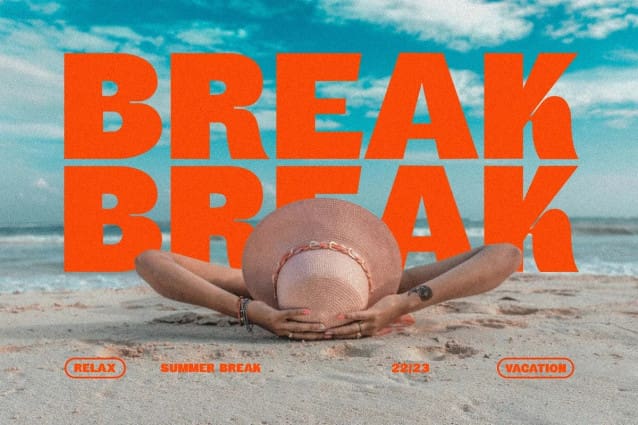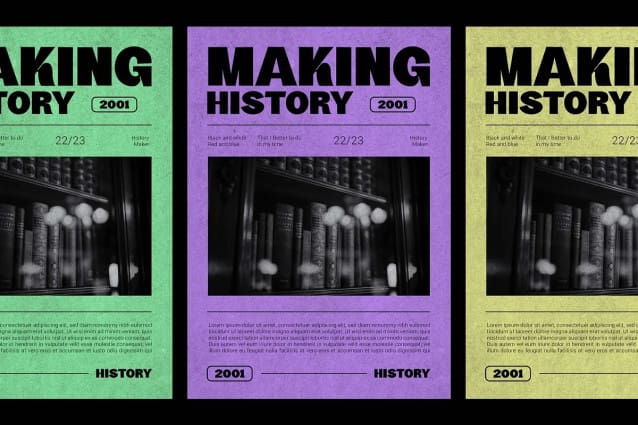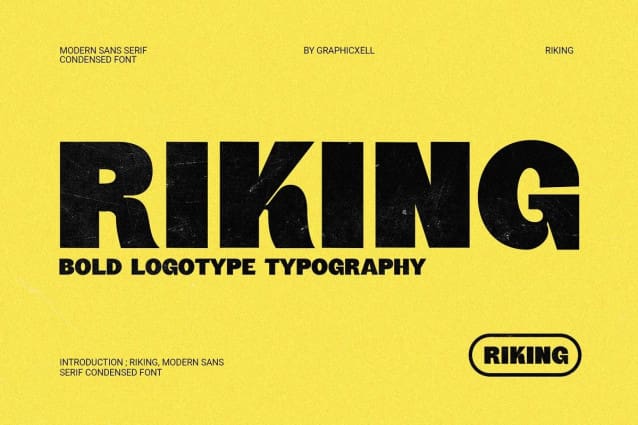
Riking Font
Riking Font – Modern Sans Serif Font inspired by the famous minimalist logo perfect for the purposes of designing templates, brochures, videos, advertising branding, logos, invitation, layout design, elegant crafting, beauty design and other